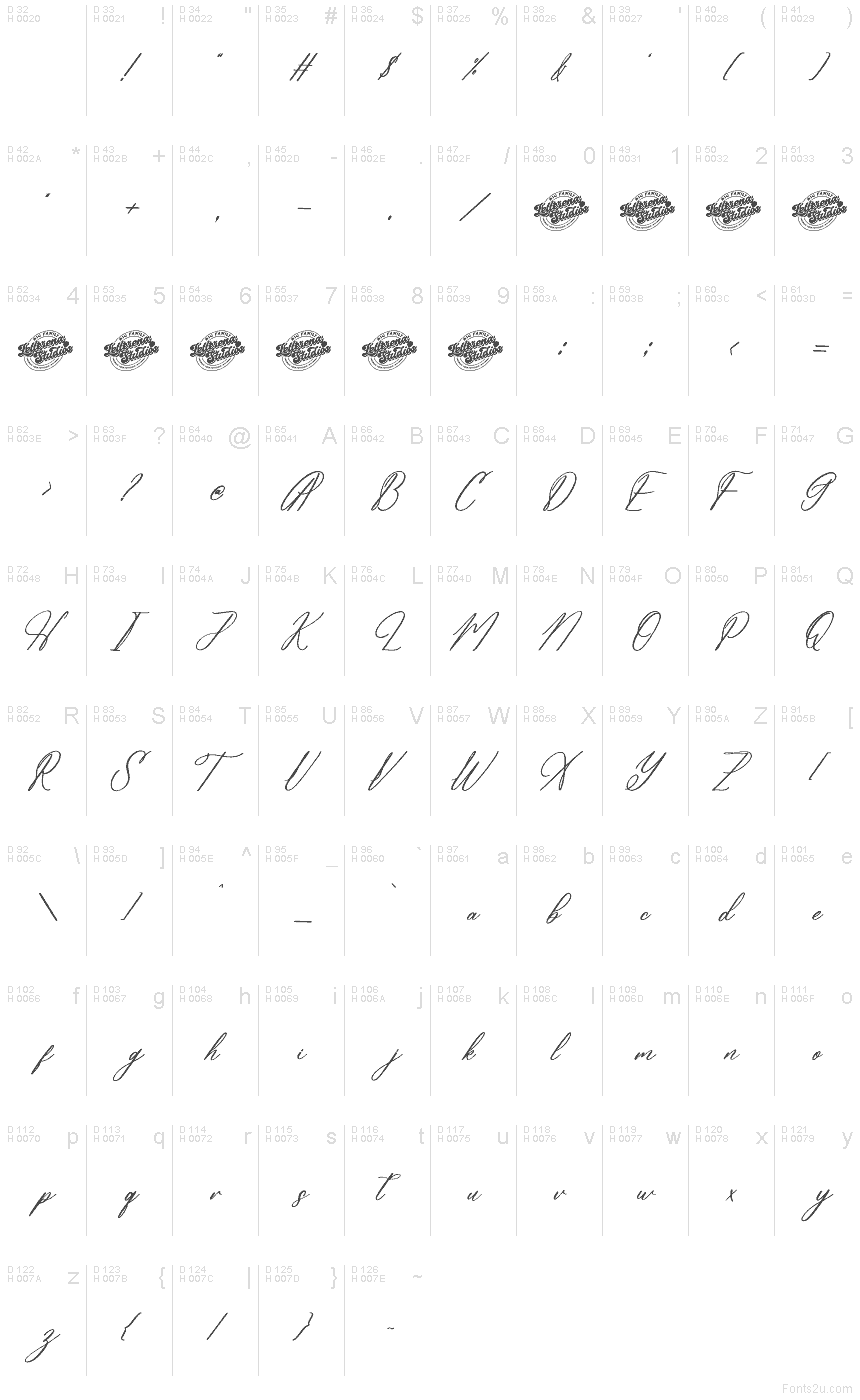
Hearthorin DEMO VERSION Italic
Hearthorin Italic font by Letterena Studios is a free handwritten typeface. From the Hearthorin family, it glides like wet ink with airy loops, a gentle slant, and graceful pressure shifts that feel both refined and personal. The letters link with an easy rhythm, giving headlines and names that silky, signature quality without getting fussy.
Using Hearthorin Italic, your wedding invitations, save‑the‑dates, boutique logos, photography watermarks, cosmetics packaging, and social posts instantly gain a romantic, bespoke touch. This free font loves white space and shines at larger sizes where its flowing texture can breathe. Pair it with a clean sans like Montserrat for body copy, and let Hearthorin Italic carry names, short phrases, and hero words.